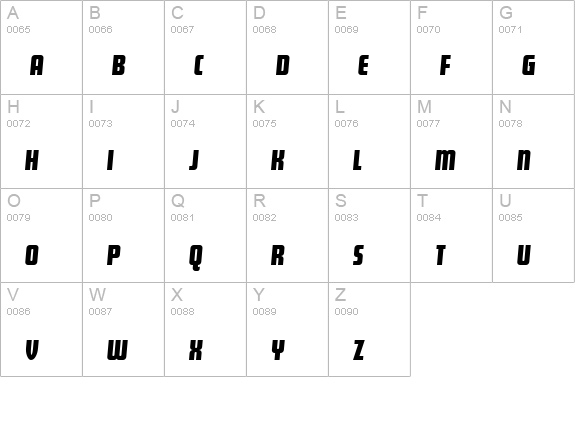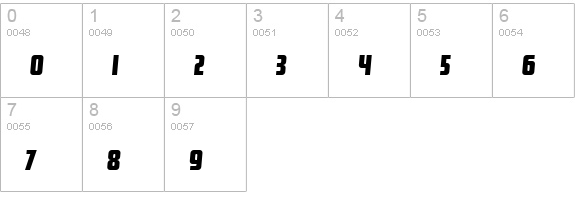
Makimango Oblique Font Details
Makimango Oblique is a distinctive, italic variant in the Makimango typeface family \xE2\x80\x94 well suited to design and typography projects.
Makimango Oblique font is a stunning typeface that effortlessly blends sophistication with a touch of playfulness. Its unique and eye-catching design is perfect for adding a modern twist to any project. With its sleek and slanted letterforms, this font exudes a sense of dynamism and energy. The clean and crisp lines of Makimango Oblique make it exceptionally legible, ensuring that your message is conveyed with clarity and impact. Whether you're creating a logo, designing a website, or crafting a brand identity, this versatile font is sure to captivate your audience. What makes Makimango Oblique even more remarkable is that it is free. Yes, you read that right! This incredible font is freely available to download at FontsMarket.com. Now you can elevate your design projects without breaking the bank. Don't miss out on this fantastic opportunity to add Makimango Oblique to your font collection. So, what are you waiting for? Embrace the boldness and elegance of Makimango Oblique and let your creativity soar. Download this remarkable font today and unlock a world of possibilities for your designs.